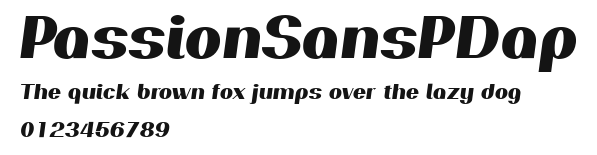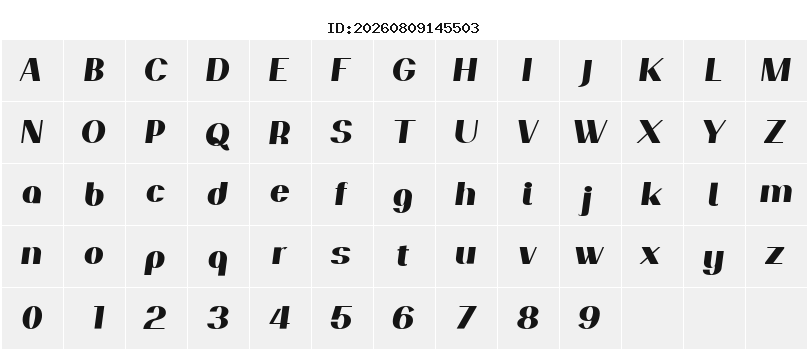
PassionSansPDap Preview
• Font Name: PassionSansPDap
• Font Style: ExtraBoldItalic
• Font ID: 1.000;pyrs;PassionSansPDap-ExtraBoldItalic
• Full Font Name: PassionSansPDap-ExtraBoldItalic
• PostScript Name: PassionSansPDap-ExtraBoldItalic
• Character Count: 244
• Manufacturer: Prescott Design
About PassionSansPDap.ttf
PassionSansPDap.ttf is a modern, elegant sans-serif font designed for ultimate readability and visual harmony. Perfect for branding, headlines, web design, and print materials.